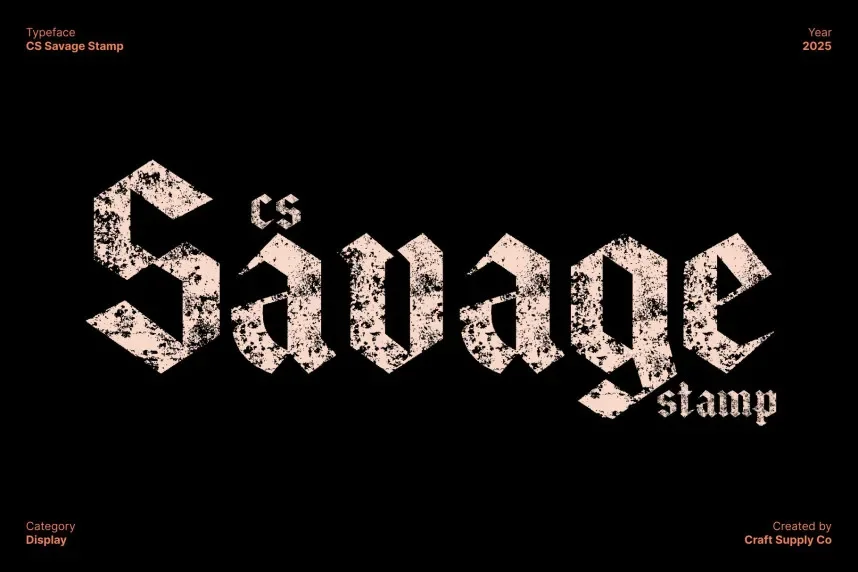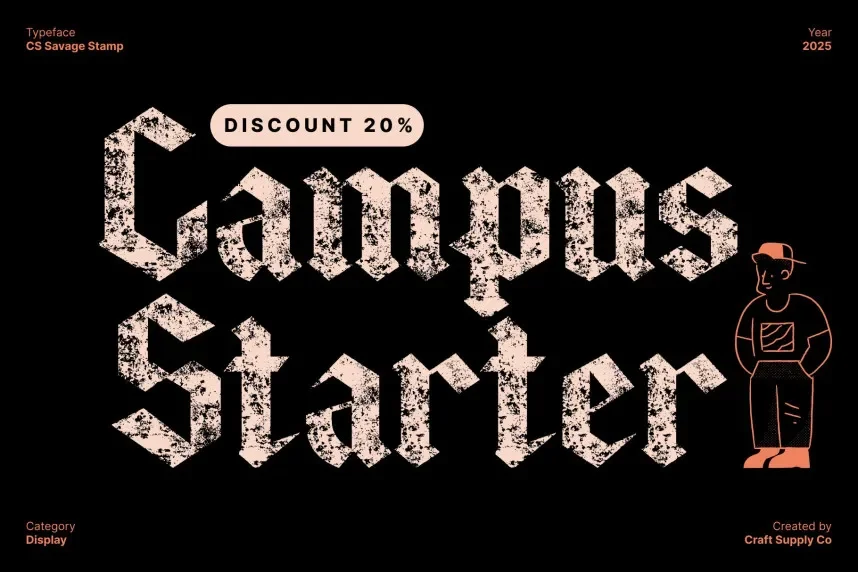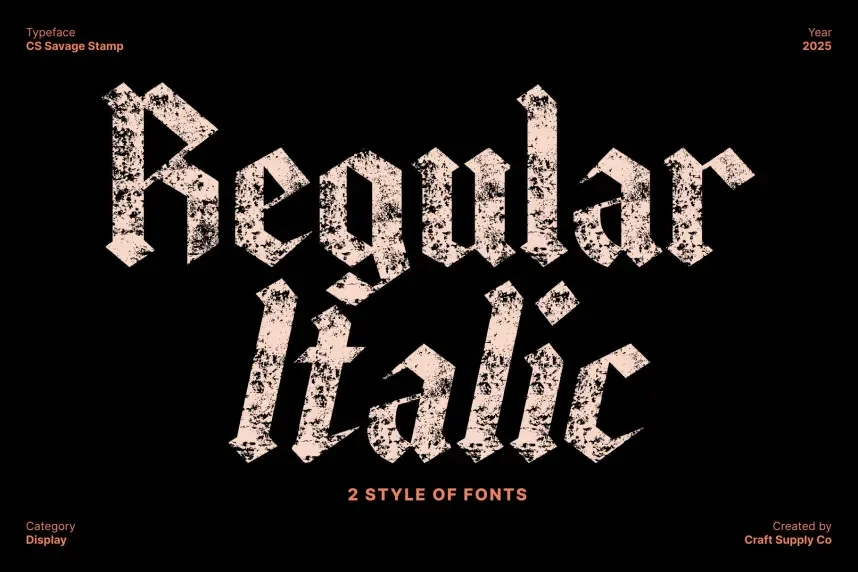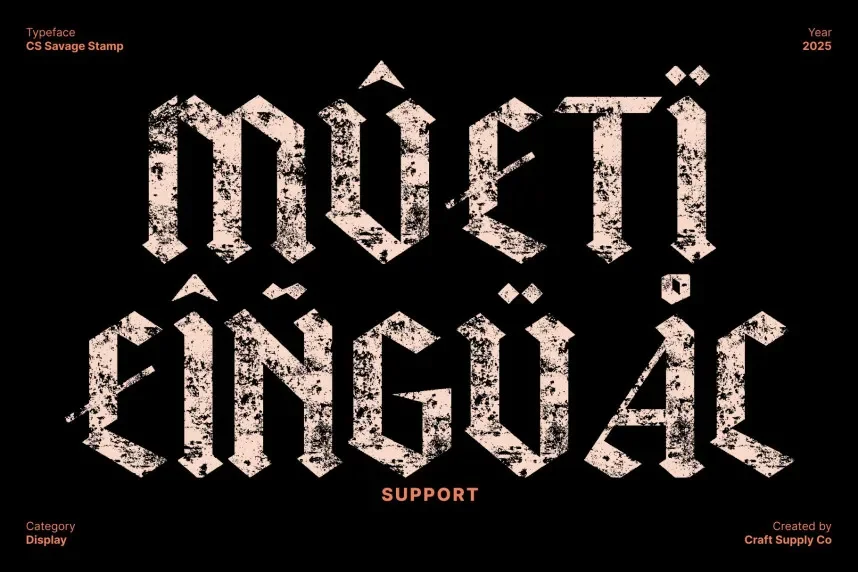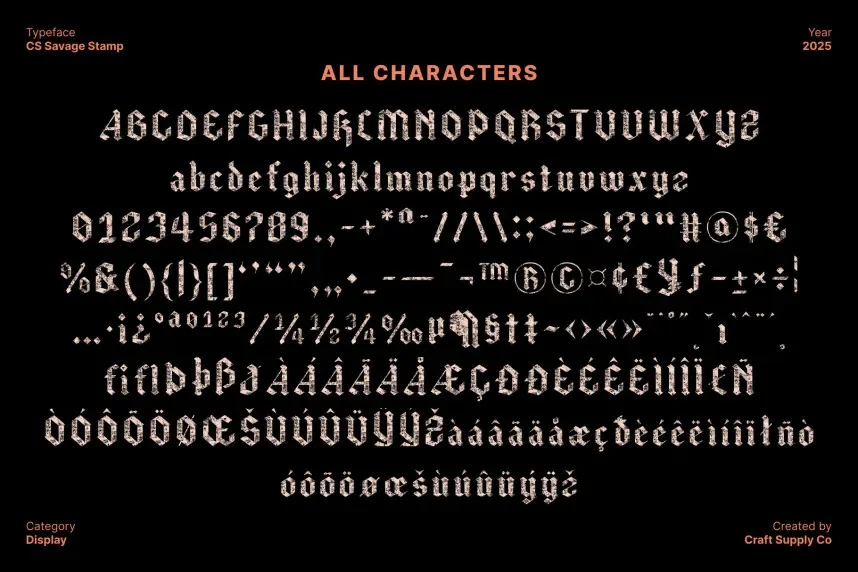
CS Savage Stamp Font is a display font built for bold, distressed typography where consistency matters. It helps designers create rugged branding without sacrificing legibility across print and digital formats.
This stamp-style font features thick strokes, worn textures, and irregular edges. The characters maintain strong shapes, allowing text to remain readable even with heavy distress effects. CS Savage Stamp Font works best at medium to large sizes.